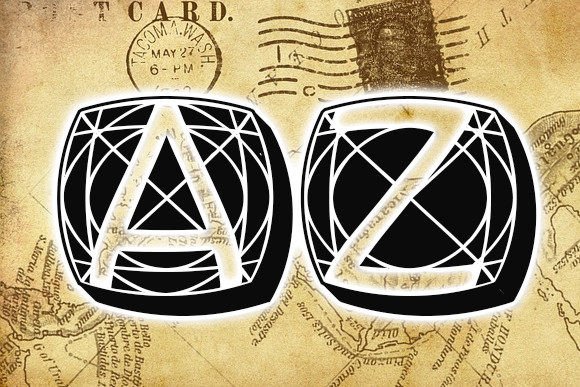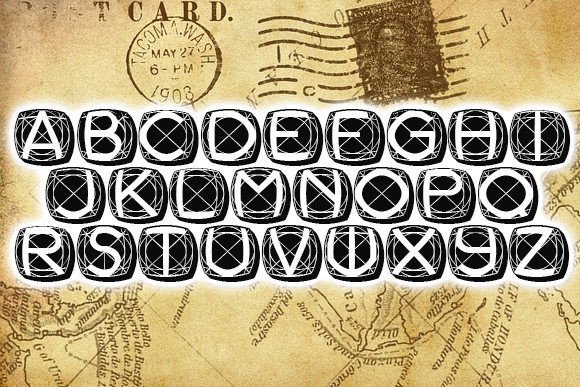
Galileo Font: Elevate Your Designs with a Stylish Decorative Typeface
Are you a designer or crafter looking for a font that will make your projects stand out? Look no further than the Galileo Font. This stylish decorative typeface is perfect for adding a touch of elegance and sophistication to any design. In this article, we’ll explore the features and benefits of the Galileo Font, and show you how to use it to take your designs to the next level.
What is Galileo Font?
Galileo Font is a decorative typeface that is inspired by the classic fonts of the Renaissance era. It features elegant lines, intricate details, and a sophisticated aesthetic that is sure to impress. The font is highly versatile and can be used on a wide range of projects, from posters and flyers to t-shirts and other merchandise.
Key Features of Galileo Font
So what sets Galileo Font apart from other typefaces? Here are some of its key features:
- Stylish and Decorative: Galileo Font is a highly decorative typeface that is sure to add a touch of elegance to any design.
- Highly Versatile: The font can be used on a wide range of projects, from posters and flyers to t-shirts and other merchandise.
- Elegant Lines: The font features elegant lines and intricate details that give it a sophisticated aesthetic.
- Easy to Read: Despite its decorative nature, Galileo Font is highly legible and easy to read, making it perfect for use on a wide range of projects.
Design Ideas Using Galileo Font
Galileo Font is a highly versatile typeface that can be used on a wide range of projects. Here are some design ideas to get you started:
- Posters: Use Galileo Font to create eye-catching posters for events, promotions, or advertising campaigns.
- Flyers: Add a touch of elegance to your flyers with Galileo Font, perfect for promoting products, services, or events.
- T-Shirts: Use Galileo Font to create stylish and decorative t-shirts, perfect for fashion brands or promotional items.
- Logos: Use Galileo Font to create elegant and sophisticated logos for businesses or brands.
Tips and Tricks for Using Galileo Font
Here are some tips and tricks for getting the most out of Galileo Font:
- Experiment with Sizes: Don’t be afraid to experiment with different font sizes to find the perfect fit for your design.
- Pair with Other Fonts: Galileo Font pairs well with other fonts, so don’t be afraid to try pairing it with a sans-serif font for added contrast.
- Use on Dark Backgrounds: Galileo Font looks stunning on dark backgrounds, so don’t be afraid to try using it on a darker color scheme.
Galileo Font is a stylish and decorative typeface that is sure to elevate your designs to the next level. With its elegant lines, intricate details, and sophisticated aesthetic, it’s the perfect choice for designers and crafters looking for a font that will make their projects stand out. Whether you’re creating posters, flyers, t-shirts, or other merchandise, Galileo Font is a versatile and highly legible typeface that is sure to impress.